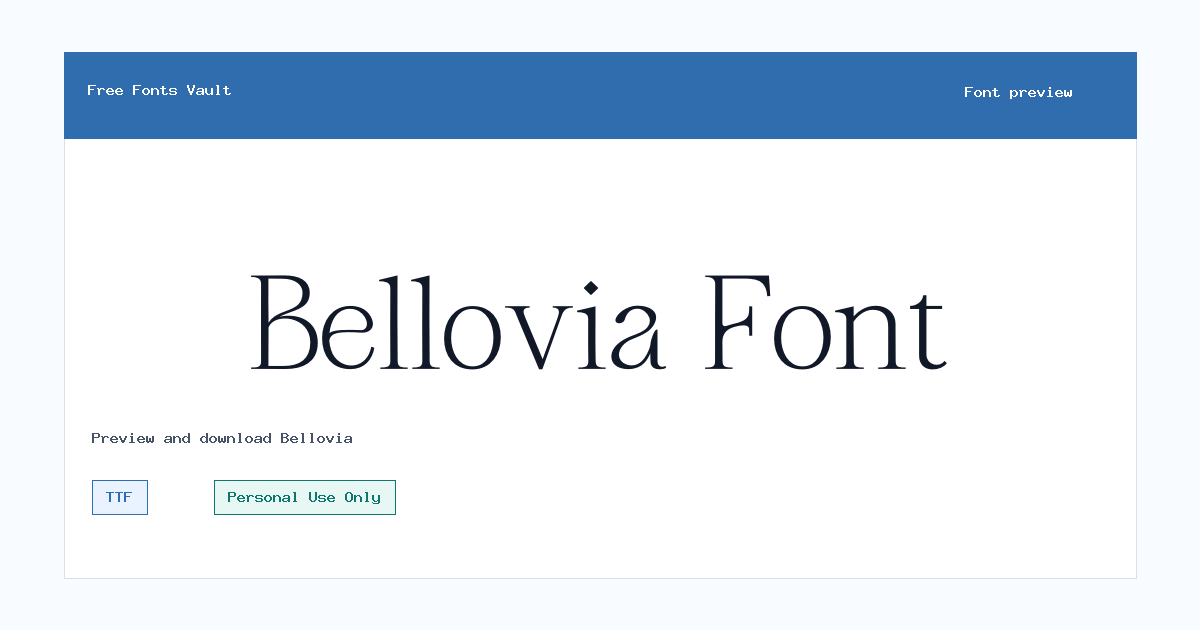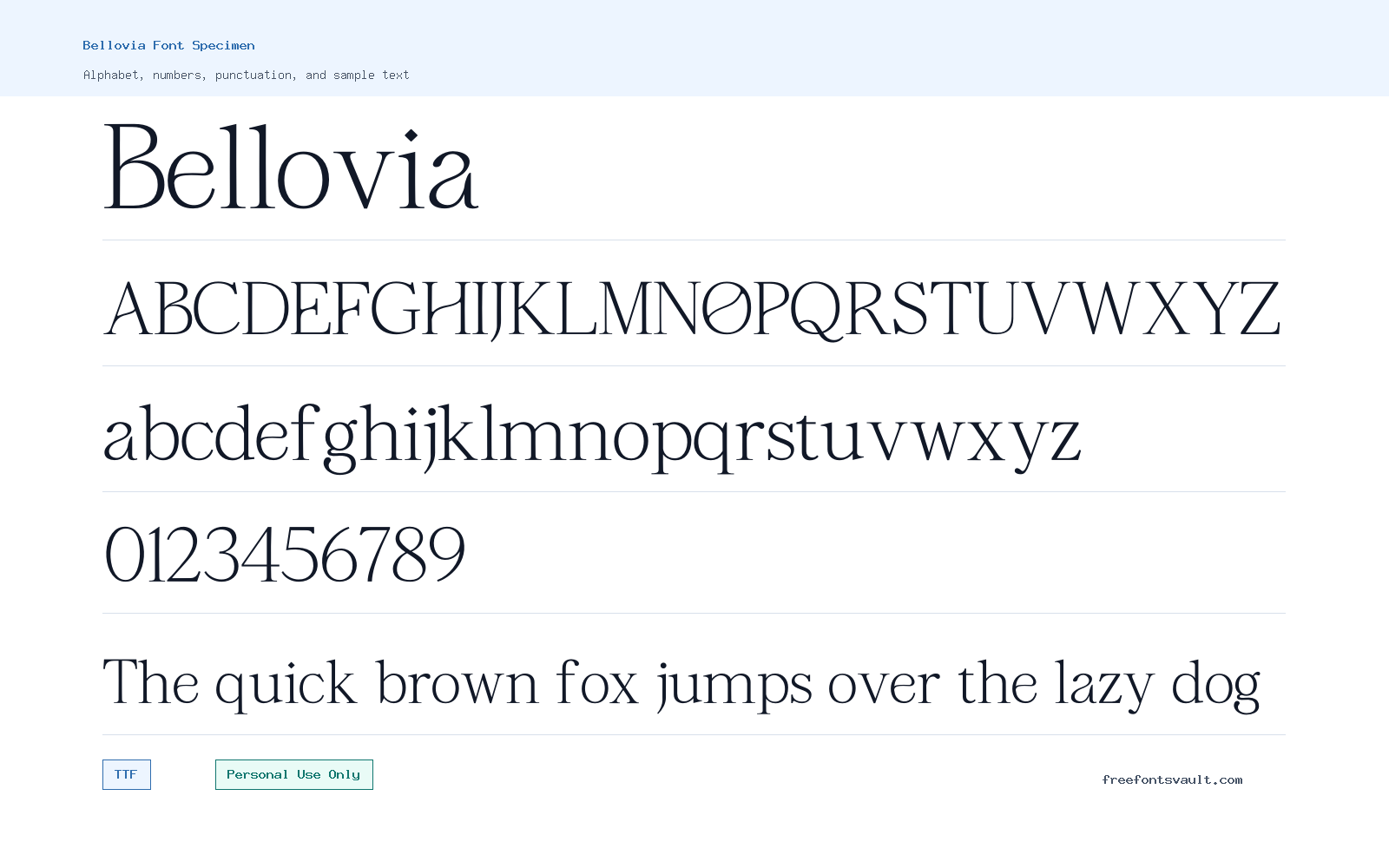
Bellovia
- Designer Risca Anitawati
Bellovia font.
Bellovia is a serif font with a decorative, polished feel, suited to short display text where the letters can stand out clearly.
About Bellovia
Bellovia works best when it is treated as a display serif rather than a long-reading text face. Its regular style gives headings, names, labels, invitations, and social graphics a more composed look without needing heavy styling. Because only one regular TTF file is included, the font is easiest to use in simple layouts where you do not need a full range of weights or italics.
Use the preview box to test the exact words you plan to design with, especially if your text includes long names, all caps, punctuation, or mixed letter shapes. Decorative serif fonts can look elegant at larger sizes but may lose detail in small captions, dense paragraphs, or narrow mobile layouts. For practical designs, pair Bellovia with a clean sans serif for body text, descriptions, dates, addresses, or product details. Keep Bellovia for the headline or focal phrase so the page stays readable.
- Serif display style suited to short, prominent text rather than long paragraphs
- Logos, name marks, boutique-style headings, and personal branding mockups
- Invitations, quote graphics, packaging drafts, social posts, and title designs
Bellovia is credited to designer Risca Anitawati. No foundry name is listed for this font page.
What style of font is Bellovia?
Bellovia is a serif display font. It is best used for short, noticeable text such as titles, names, invitations, and branding drafts.
Can I use Bellovia for body text?
It is not the best choice for long paragraphs. Use it for headings or accent text, then choose a simpler font for longer reading sections.
Who designed Bellovia?
Bellovia is credited to Risca Anitawati.